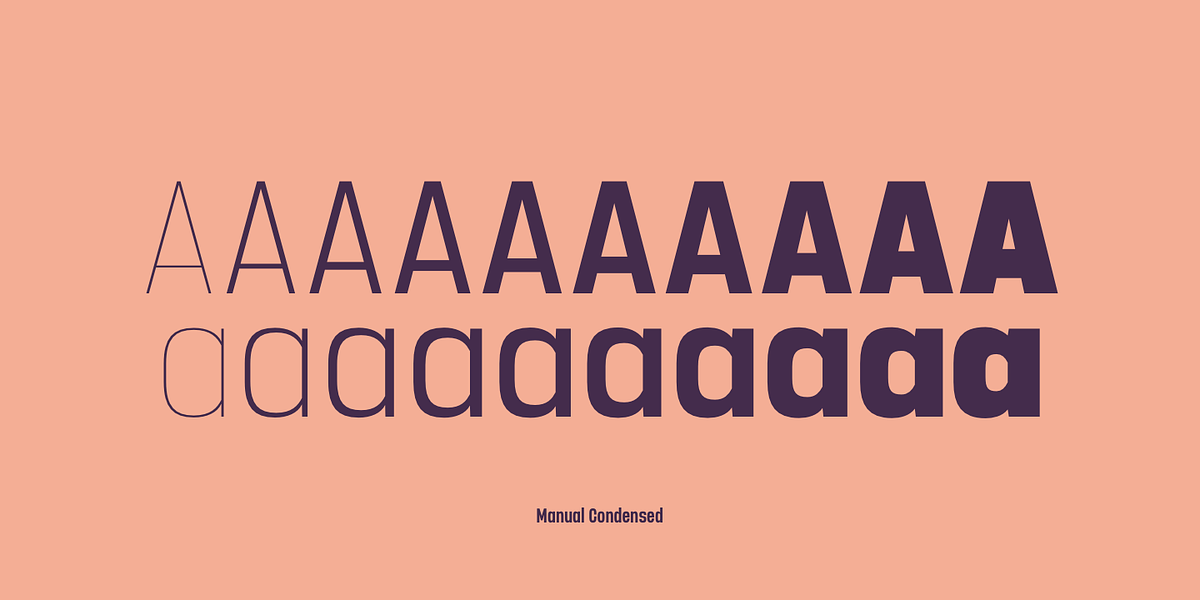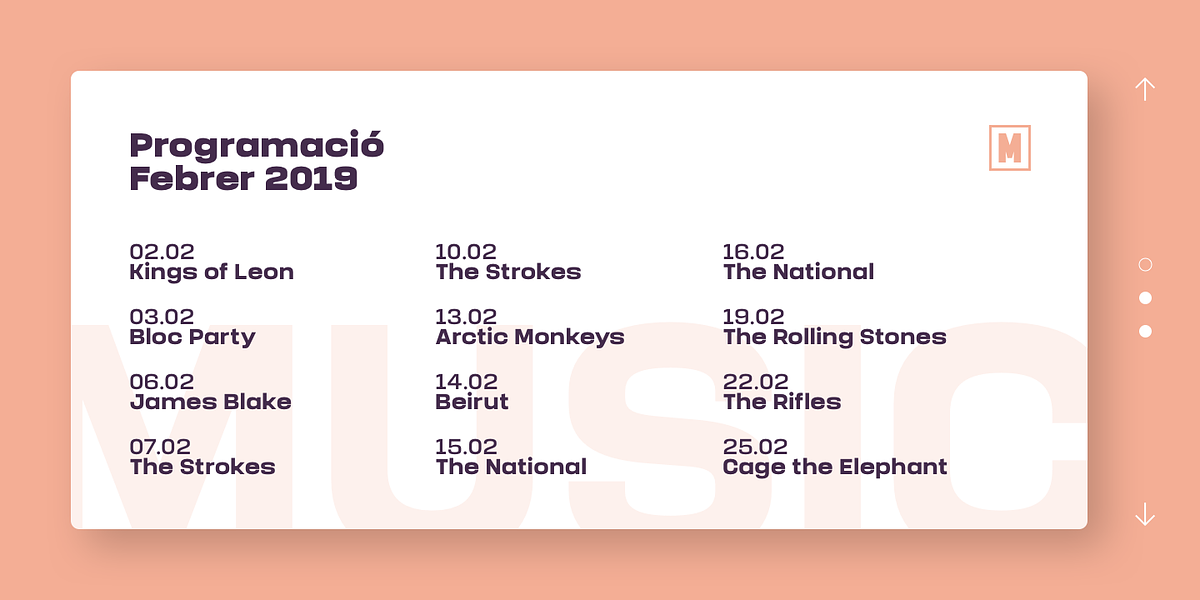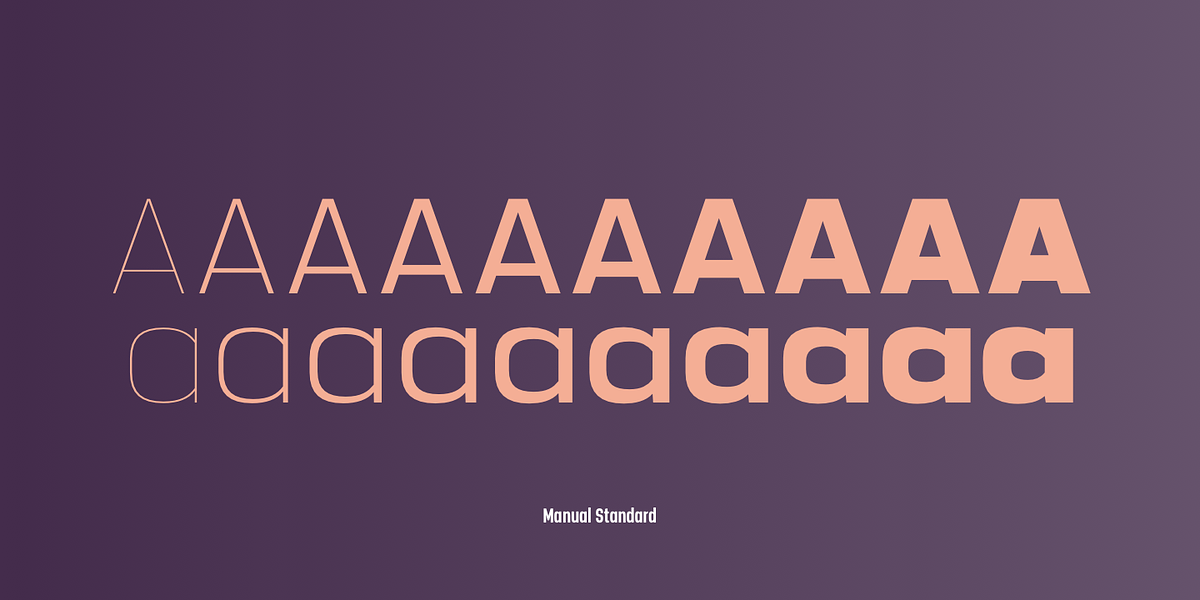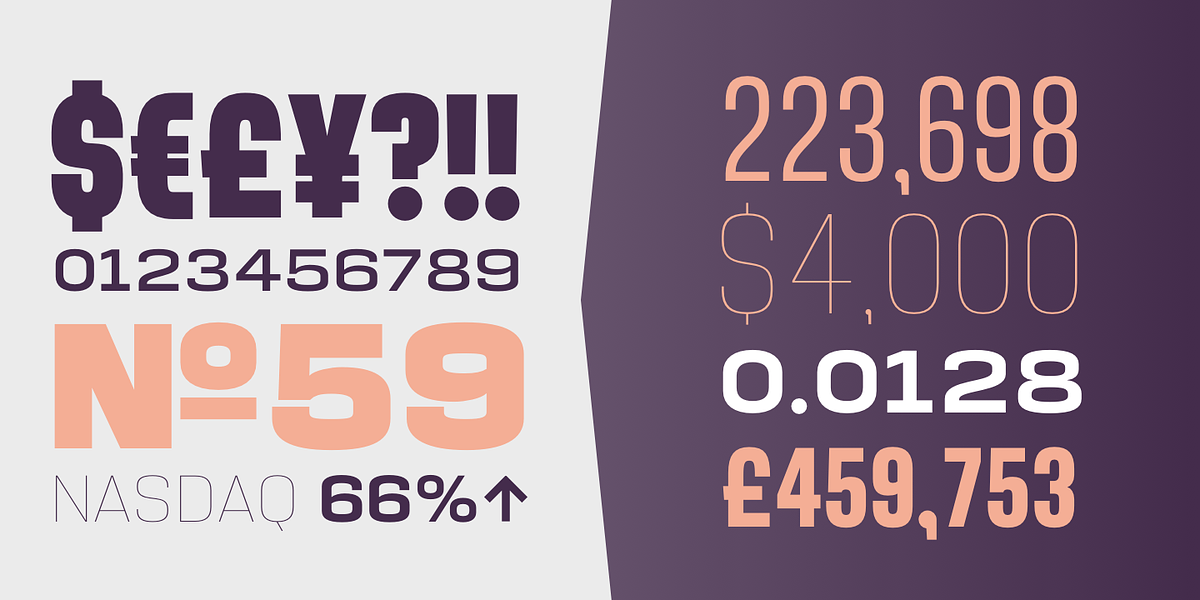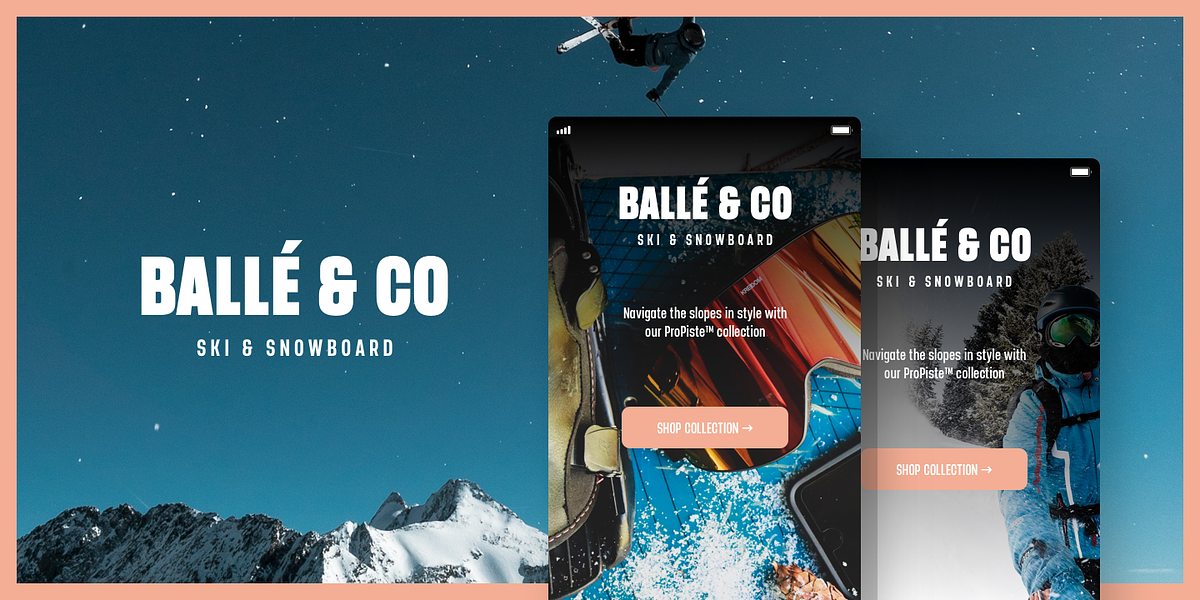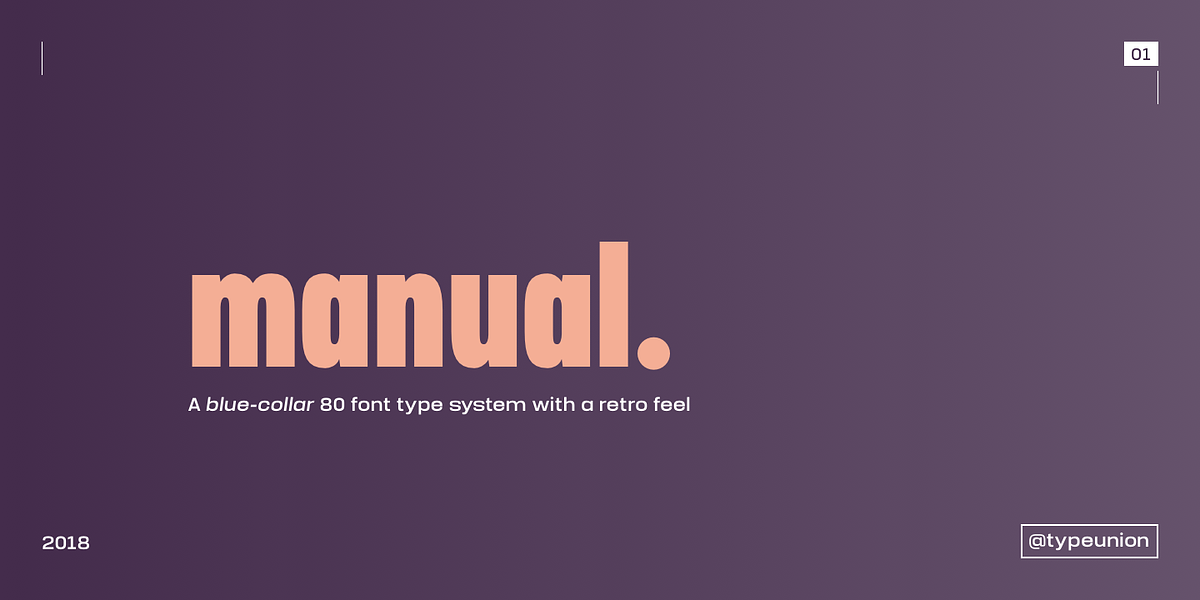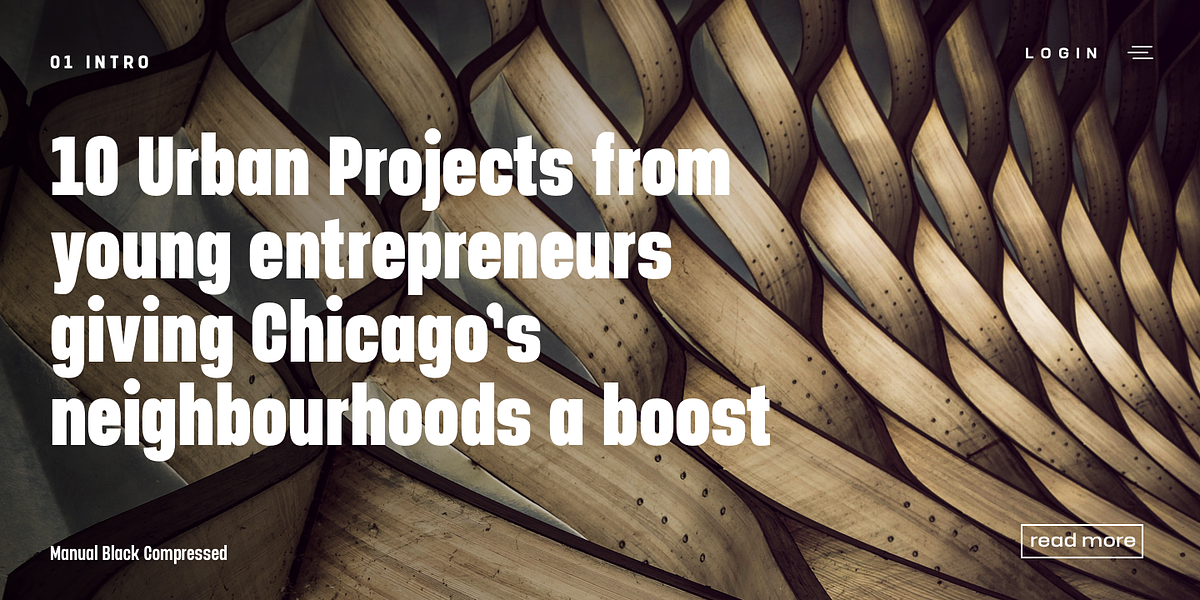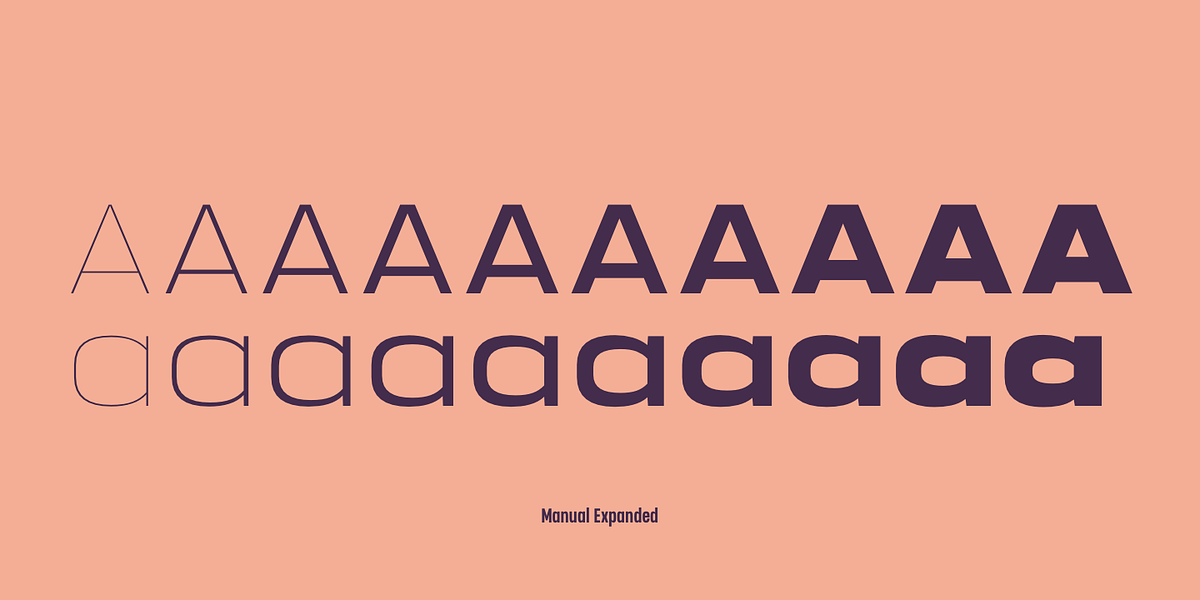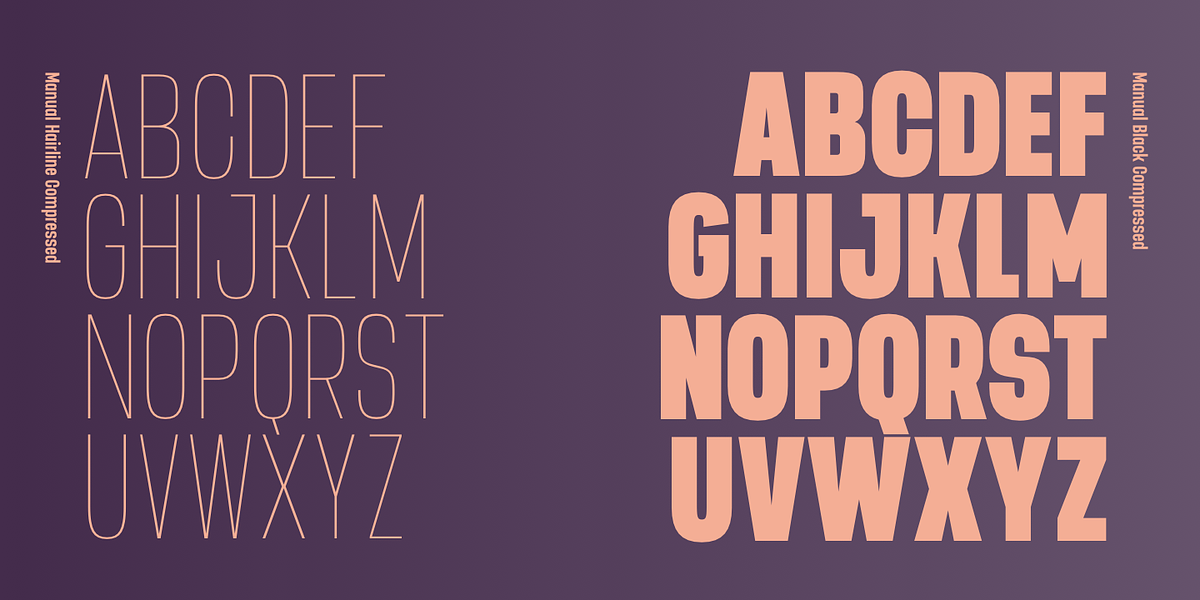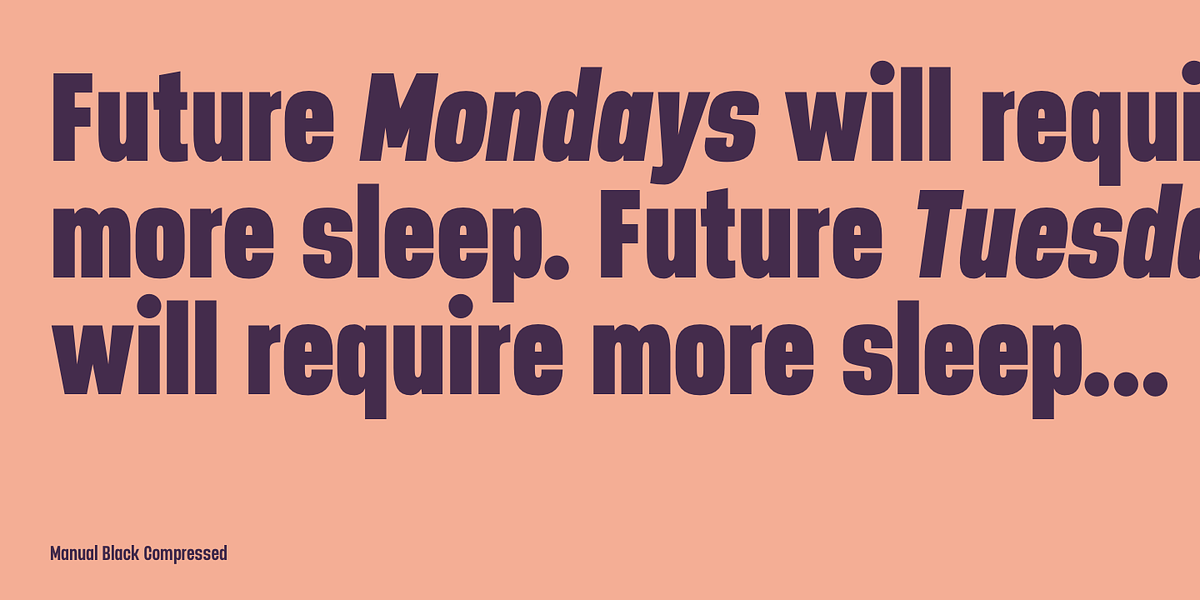
Manual
Manual is a geometric sans serif font family with a subtle retro influence. Its design emphasizes readability thanks to its high x-height, making it suitable for smaller text sizes. It also includes bold weights that create impactful headlines. The extensive weight and width options allow for diverse design applications.